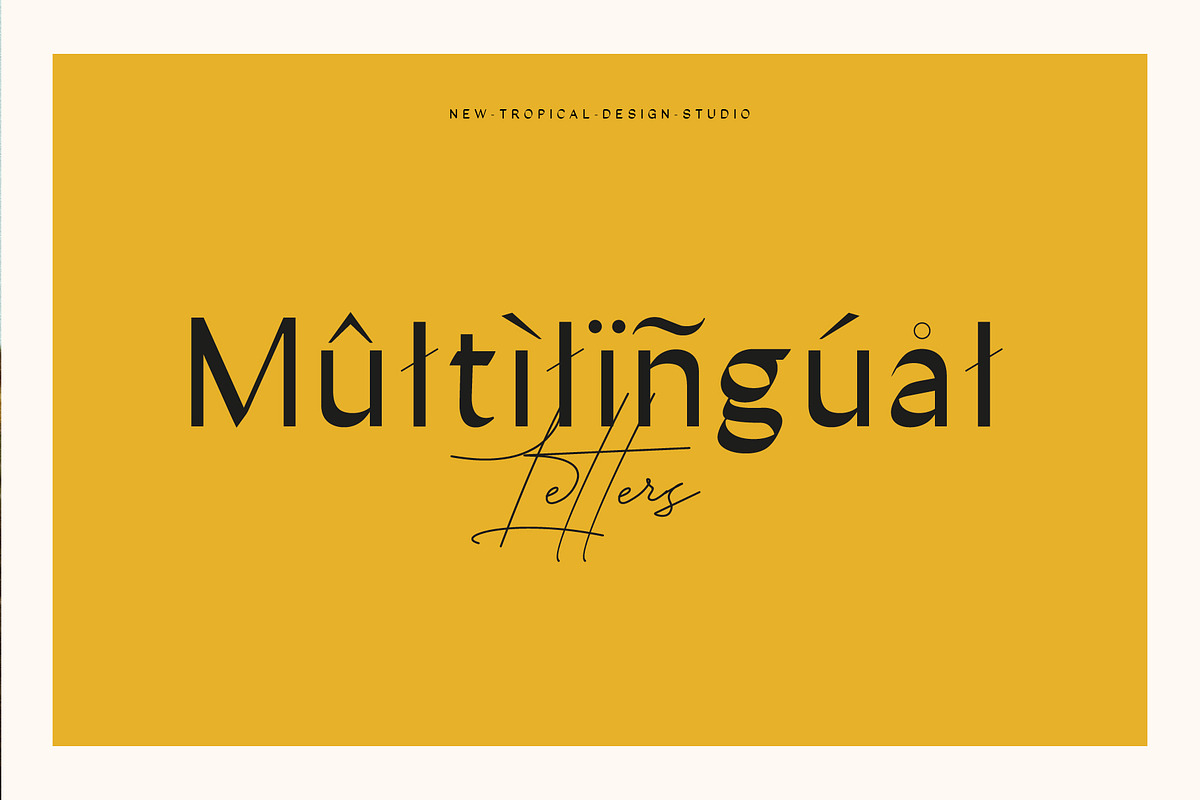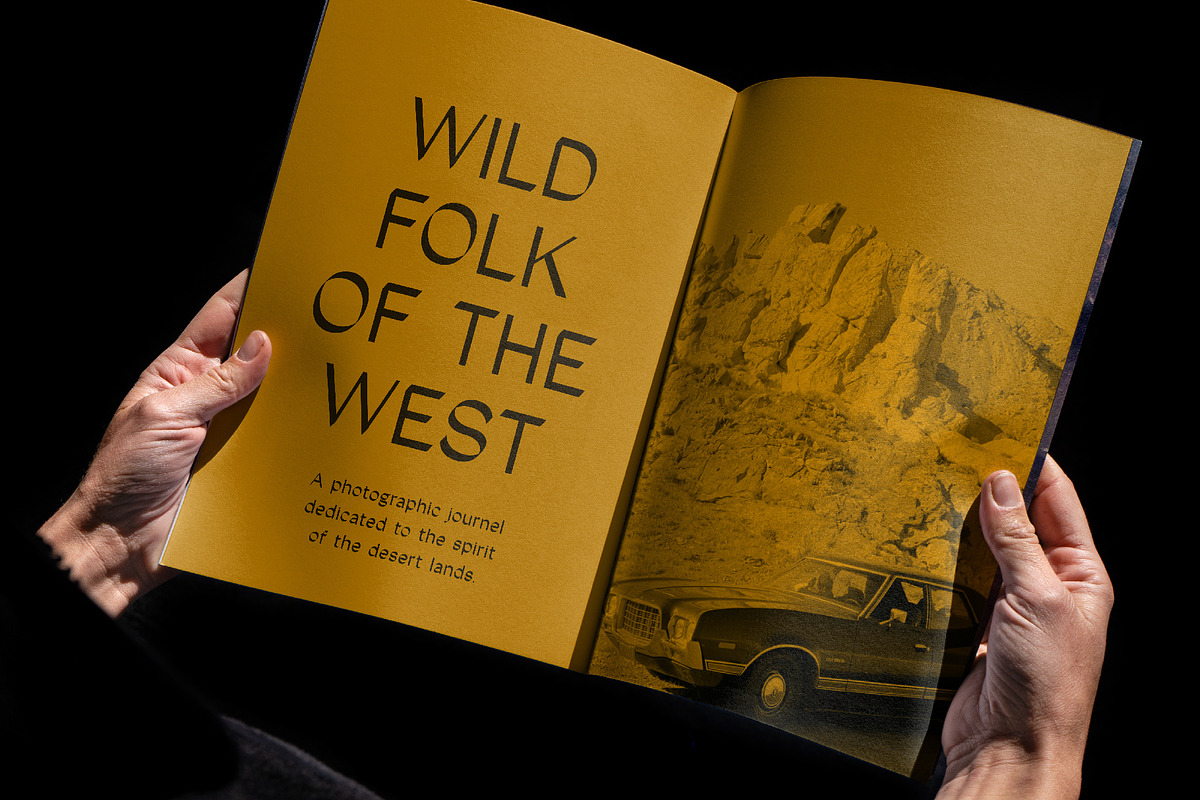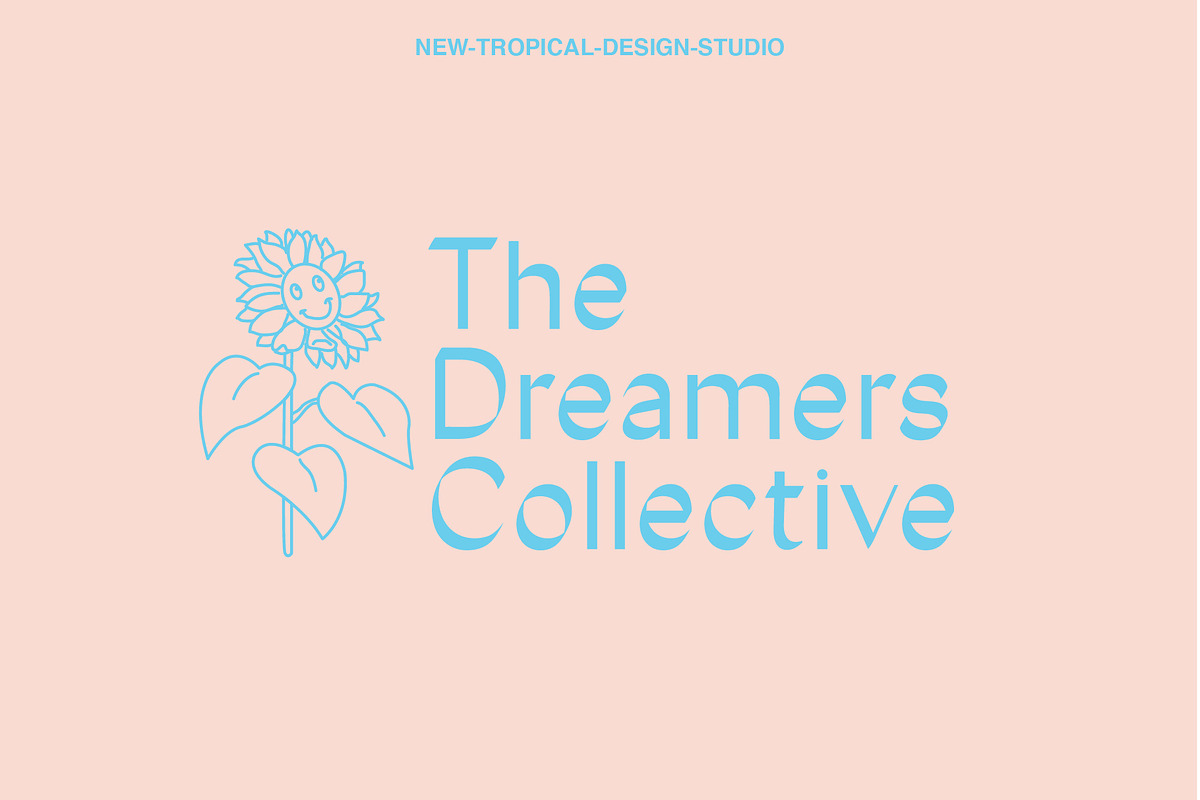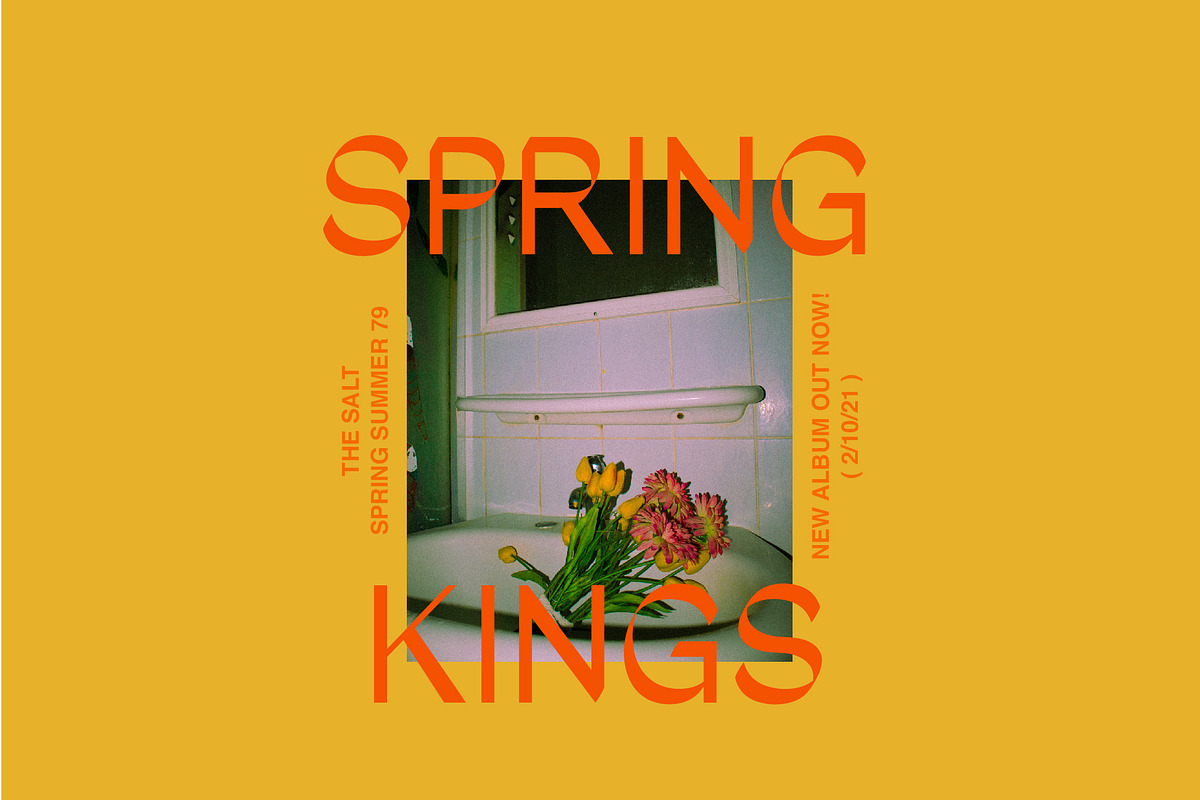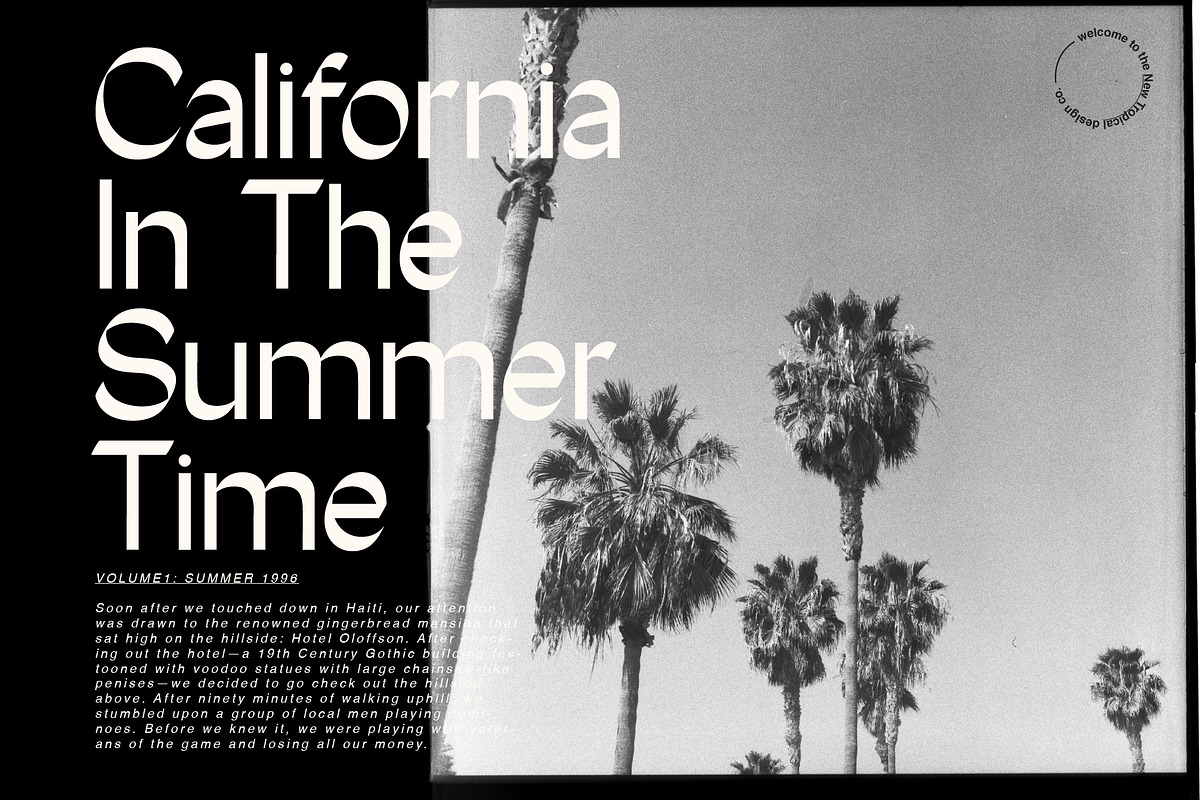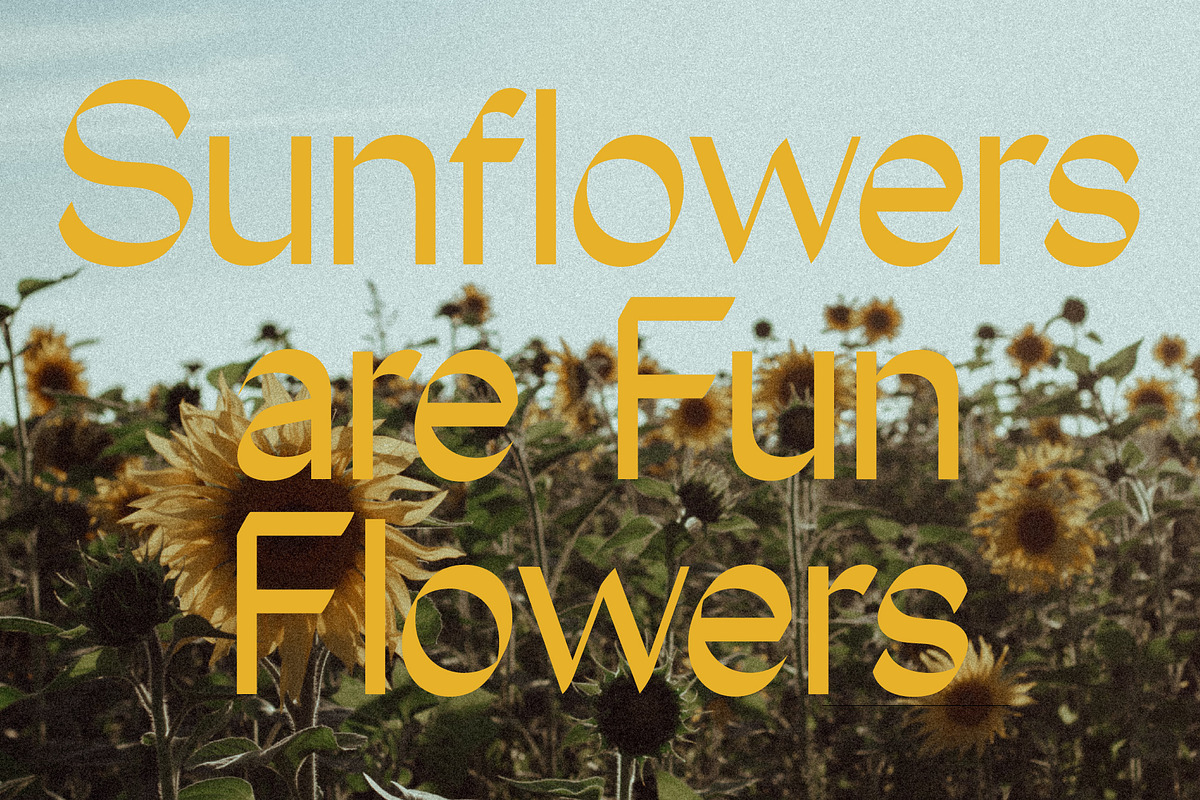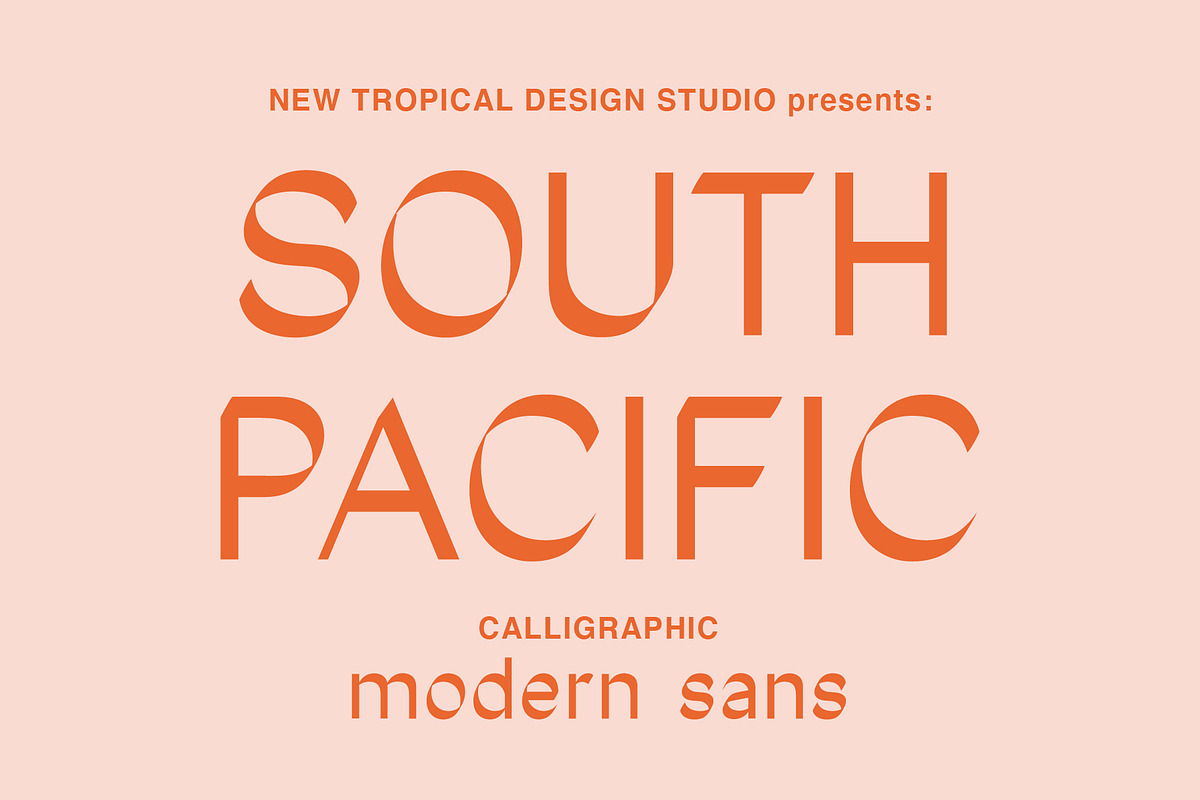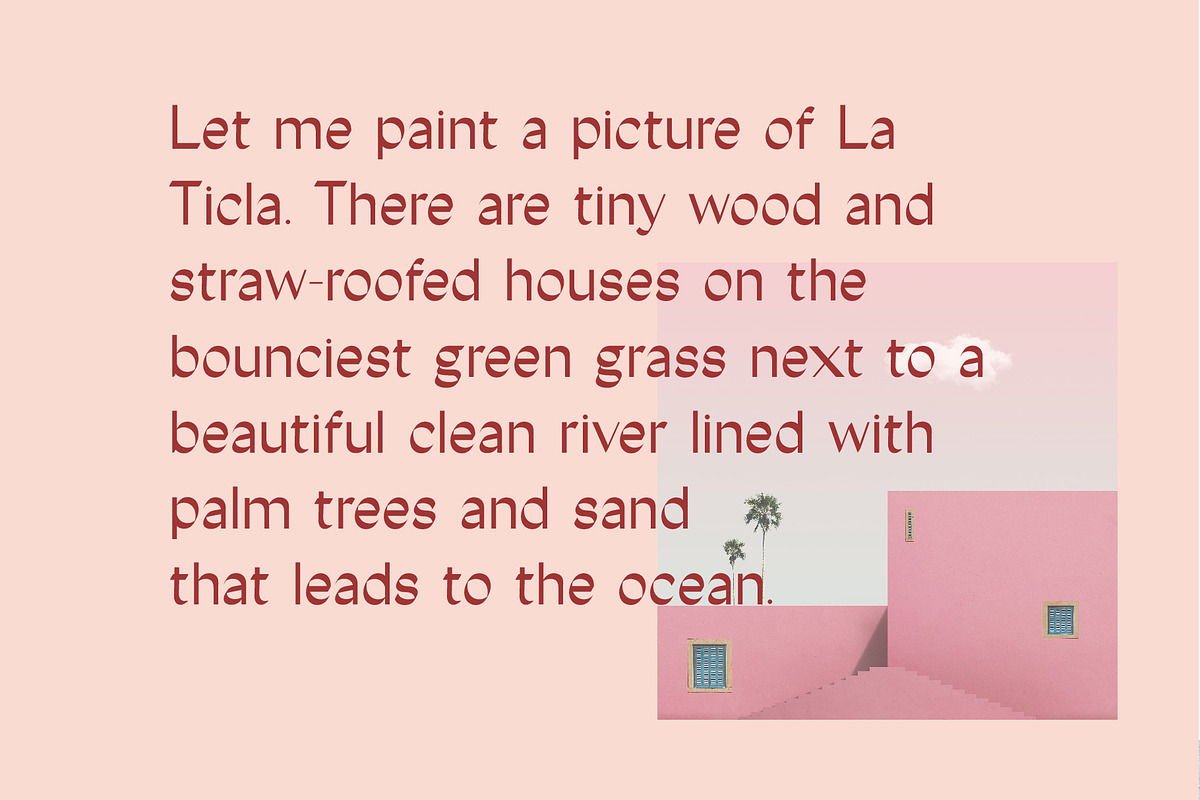
South Pacific
South Pacific is a modern calligraphic sans serif. The angled calligraphic brush strokes create unique letterforms. Sharp angles mixed with overlapping curves create a typeface that is a little bit fun and a little bit modern.